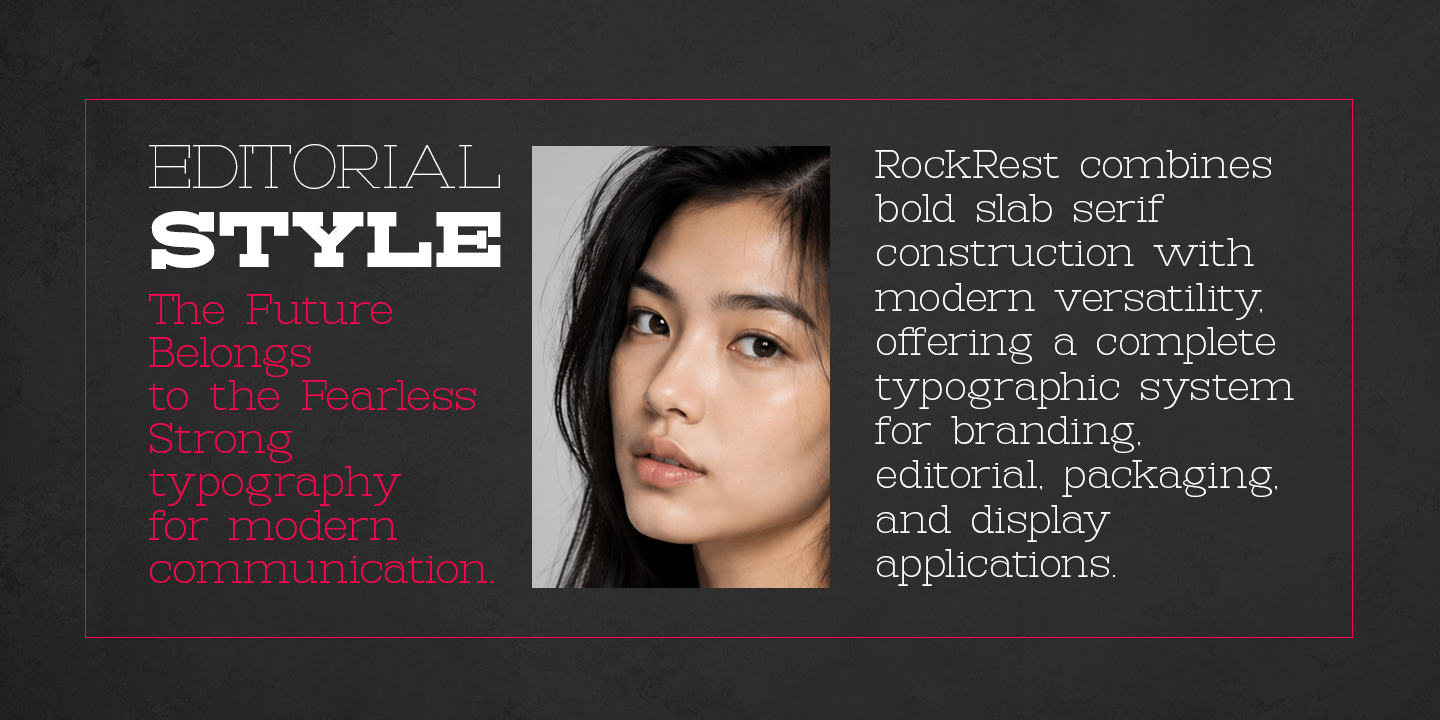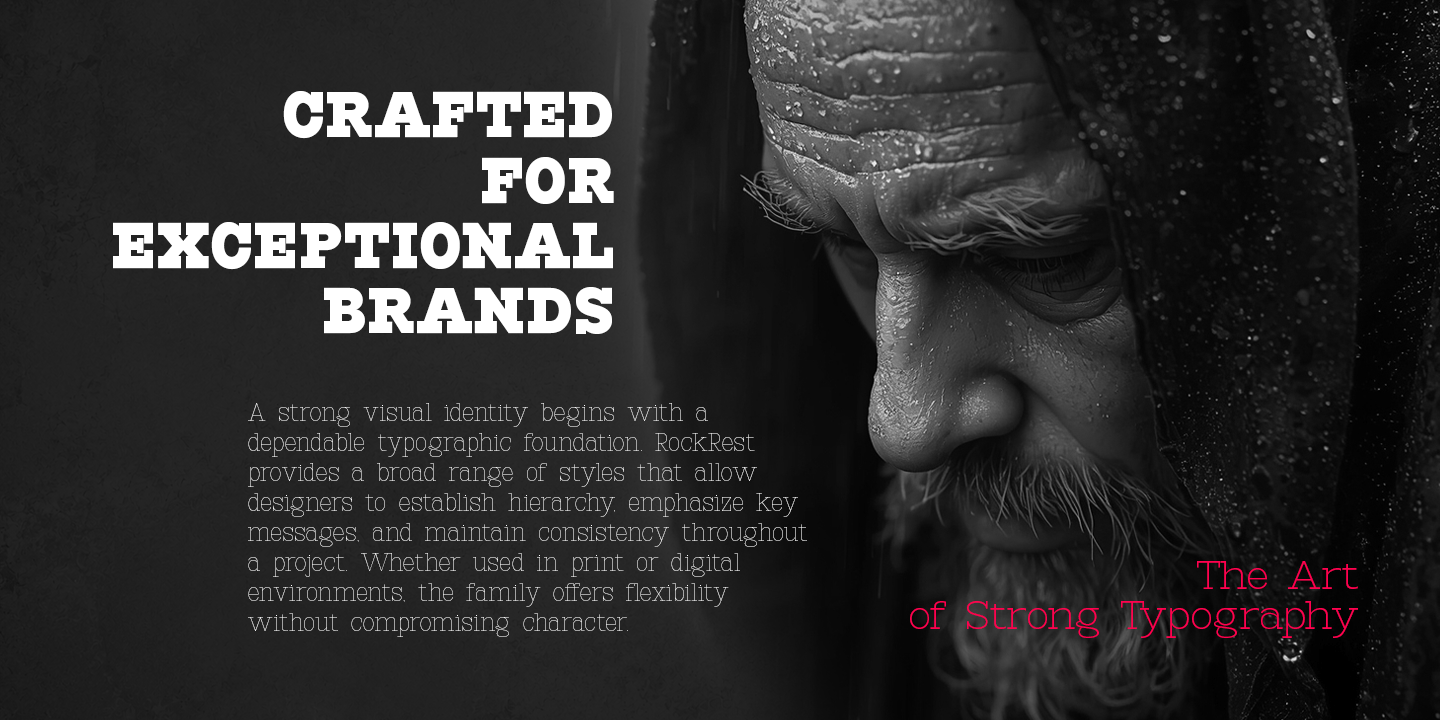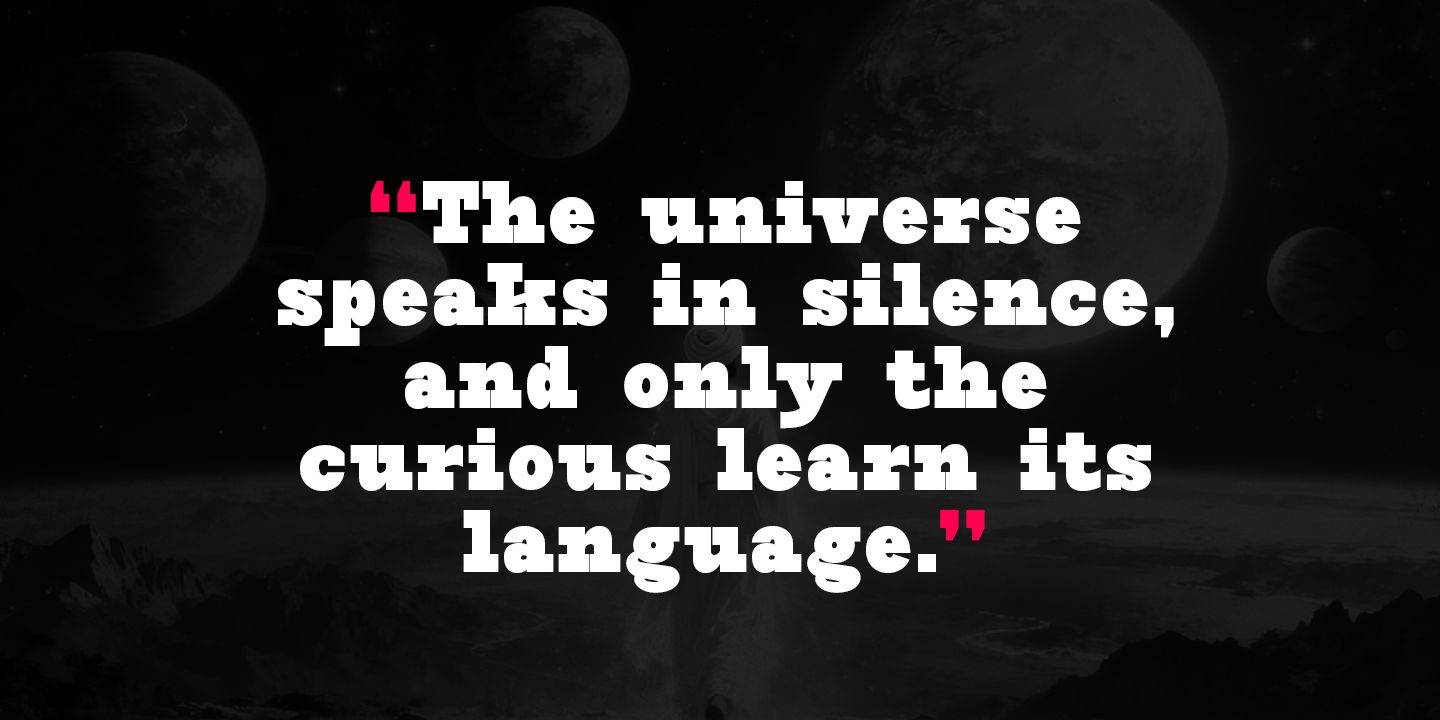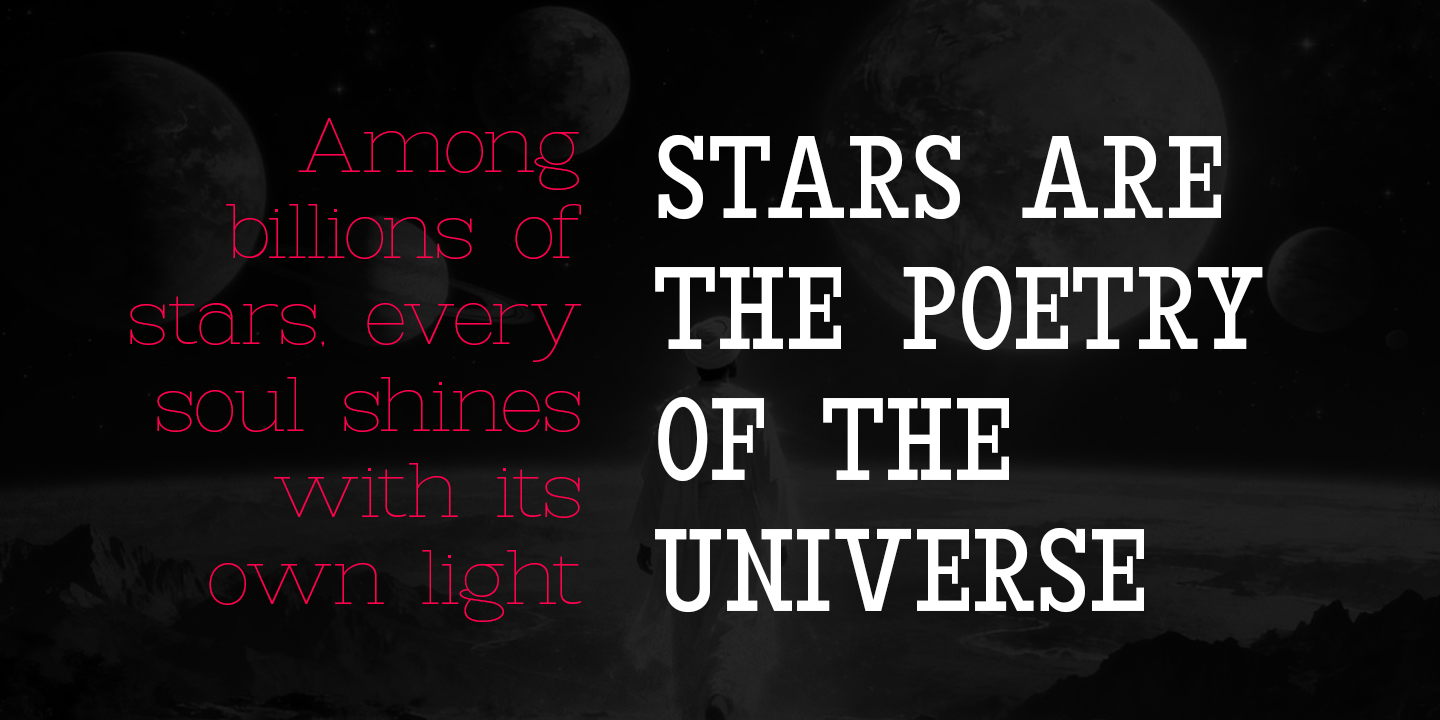
RockRest
RockRest — Slab Serif Superfamily
RockRest is a versatile slab serif typeface family designed to deliver strength, clarity, and timeless character across a wide range of design applications. Built with sturdy serifs, balanced proportions, and a contemporary structure, RockRest combines the confidence of classic slab serif typography with the flexibility required by modern visual communication.
Featuring 45 styles, RockRest spans from Condensed to Expanded widths and from Thin to Black weights, providing designers with a comprehensive typographic system for everything from editorial layouts and corporate branding to packaging, advertising, and digital interfaces.
The Condensed styles maximize space efficiency while maintaining excellent readability, making them ideal for headlines, narrow columns, and impactful display typography. Standard-width styles offer balanced proportions suited for both text and branding applications, while the Expanded variants create a bold visual presence with enhanced personality and emphasis.
RockRest’s carefully crafted letterforms feature strong slab serifs, clean stroke transitions, and consistent spacing, ensuring a harmonious appearance across all weights and widths. The lighter styles bring elegance and sophistication, while the heavier weights project authority, stability, and confidence.
Whether used for powerful headlines, refined editorial design, contemporary branding, or large-scale visual identities, RockRest provides the versatility and typographic depth needed to build cohesive and expressive design systems.
Key Features:
- 45 styles from Thin to Black
- Width variations from Condensed to Expanded
- Strong and contemporary slab serif construction
- Excellent readability across sizes
- Suitable for branding, editorial, packaging, advertising, and digital design
- Consistent design language throughout the entire family
- Professional typographic hierarchy and flexibility
RockRest is a dependable slab serif superfamily that balances strength and sophistication, offering designers a complete toolkit for creating bold, memorable, and highly functional typography.